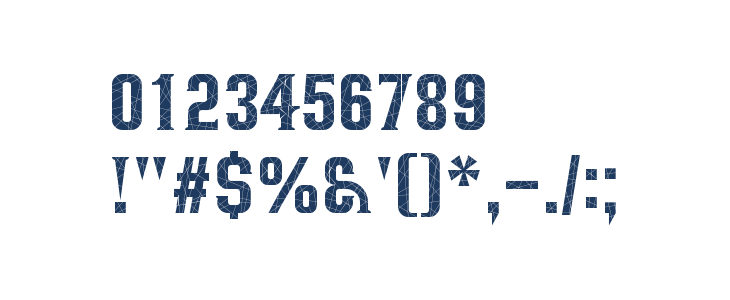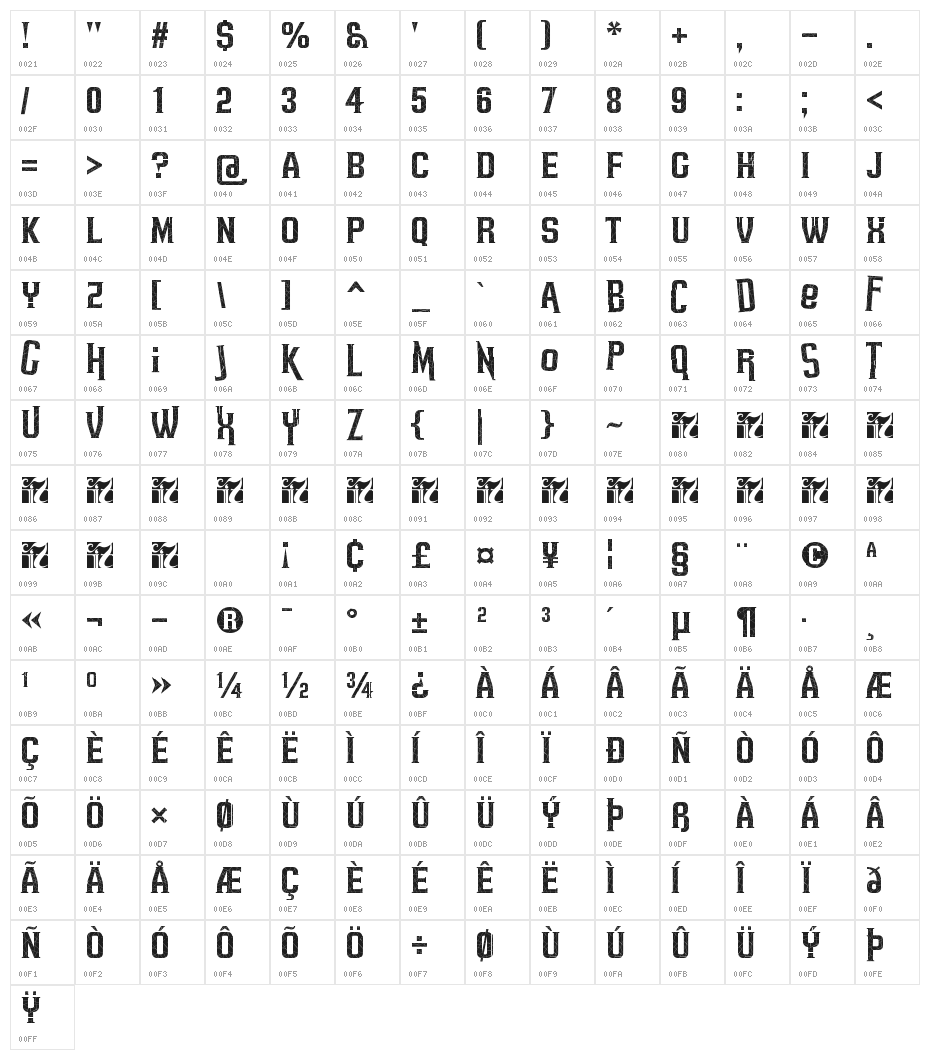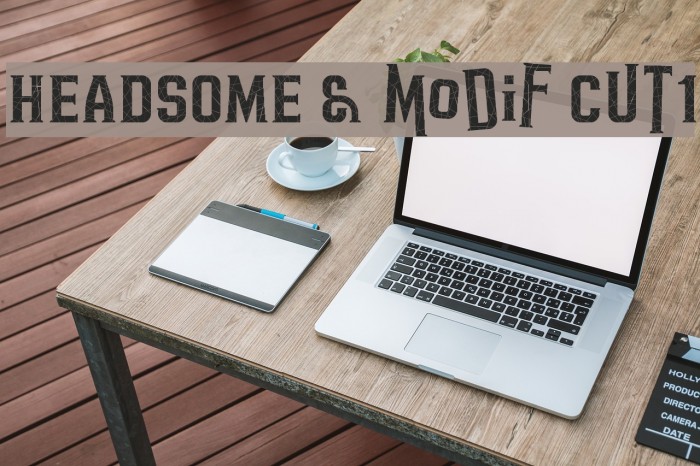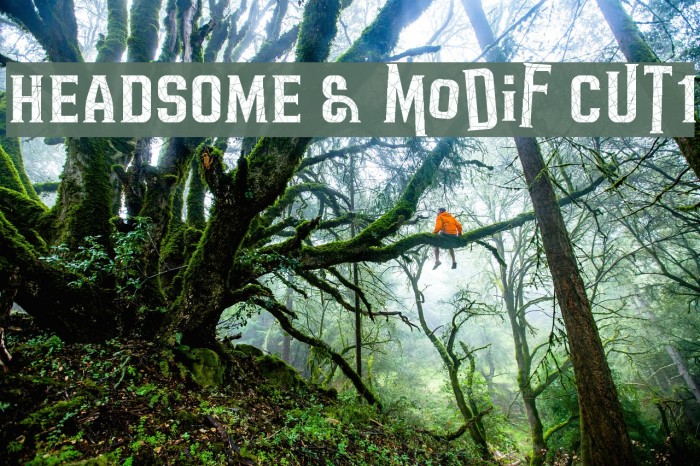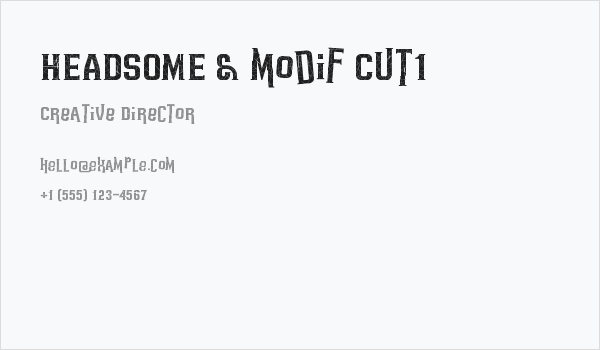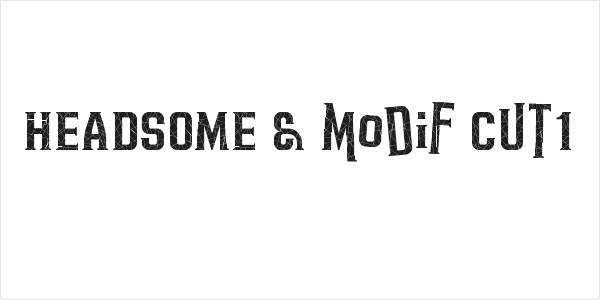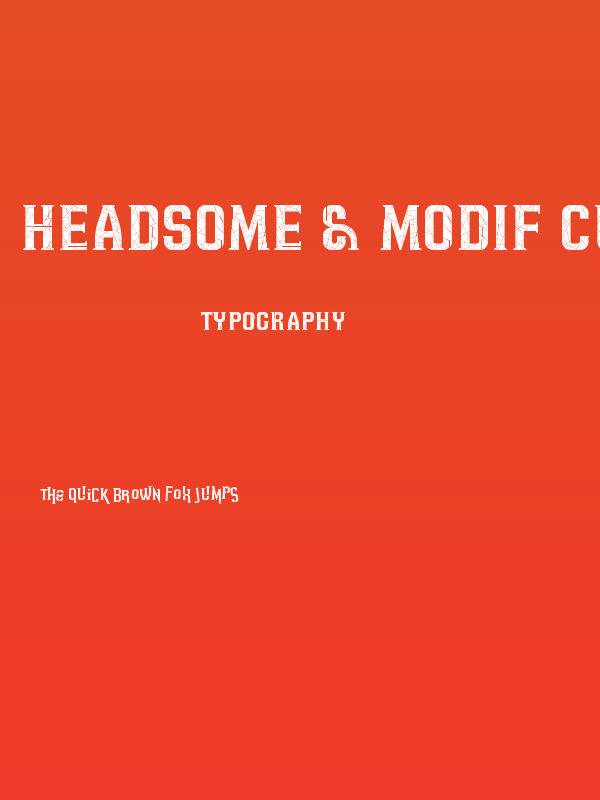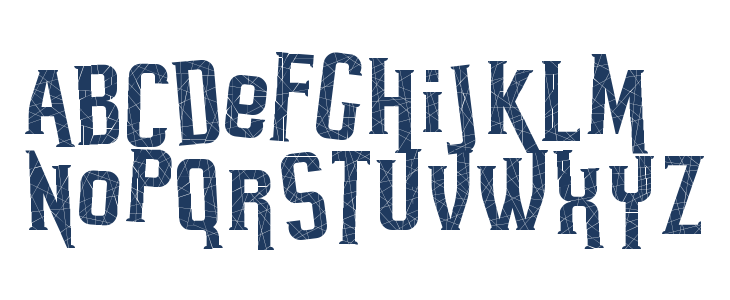
HEADSOME & modif Cut1 Font
HEADSOME & modif Cut1 Description
This font features a bold, geometric design with a distinct pattern overlay that resembles a cracked or shattered texture. The uppercase and lowercase letters are designed with sharp angles and a strong presence, making it ideal for attention-grabbing headlines. The numbers and special characters maintain the same bold style, ensuring consistency across all text elements. The unique texture adds a layer of complexity and visual interest, making it suitable for modern and edgy design projects.